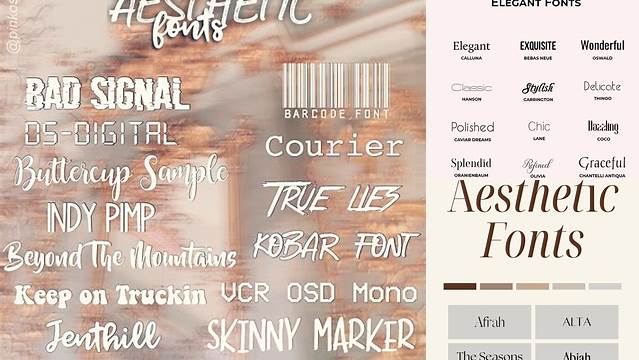
Best Aesthetic Fonts In Word: A Complete Guide
Hey guys! Ever wondered how to make your Word documents look absolutely stunning? It all starts with the right fonts! Choosing the best aesthetic fonts in Word can transform a plain document into a visually appealing masterpiece. Whether you're working on a resume, a presentation, or just a fun project, the perfect font can speak volumes. Let’s dive into the world of typography and explore some fantastic options that can elevate your work.
Why Font Choice Matters
Before we jump into the specifics, let's talk about why your font choice is so crucial. The aesthetic fonts in Word you select aren't just about looking pretty; they play a significant role in readability, conveying tone, and creating a professional or creative impression. Think about it – a formal report wouldn't look right in a whimsical, handwritten-style font, and a birthday invitation would feel out of place in a serious, traditional typeface. Selecting the appropriate font helps you communicate your message effectively and ensures your audience engages with your content.
Fonts have the power to evoke emotions and set the mood. A classic serif font like Times New Roman might give a sense of authority and tradition, while a sleek sans-serif font like Arial can project modernity and simplicity. Then there are the more decorative fonts, which can add personality and flair, but must be used judiciously to avoid overwhelming the reader. Understanding these nuances allows you to make informed decisions and choose fonts that align perfectly with your project's purpose and style. So, when you're pondering which aesthetic fonts in Word to use, remember that you're not just picking letters – you're crafting an experience.
Moreover, consider the context in which your document will be viewed. If it's primarily for on-screen reading, fonts optimized for digital displays, such as Segoe UI or Calibri, might be your best bet. These fonts are designed to be clear and legible even at smaller sizes, reducing eye strain and enhancing the viewing experience. On the other hand, if your document is intended for print, you might explore fonts with finer details and serifs, which often appear more elegant and readable on paper. Ultimately, the best aesthetic fonts in Word are those that not only look great but also serve their practical purpose, ensuring your message is conveyed clearly and beautifully. So, let's delve into some amazing options that can help you achieve just that!
Top Serif Fonts for a Classic Look
Serif fonts are characterized by the small lines or strokes (called serifs) at the ends of the letters. These fonts are often associated with tradition, authority, and readability, making them ideal choices for formal documents, reports, and printed materials. When you're aiming for a classic look, selecting the right serif font can make all the difference. Let’s explore some top contenders for aesthetic fonts in Word within the serif category.
Times New Roman: This is perhaps the most recognizable serif font, often used in academic writing and formal documents. While it might seem like a default choice, its familiarity and readability make it a solid option for projects requiring a professional touch. Times New Roman exudes a sense of reliability and clarity, ensuring your content is easily digestible and taken seriously. It’s a workhorse font, adaptable to various contexts while maintaining its dignified appearance. If you're drafting a formal letter, a research paper, or any document where credibility is paramount, Times New Roman is a dependable choice.
Garamond: Garamond is an elegant and refined serif font that adds a touch of sophistication to any document. Its classic letterforms and balanced proportions make it a pleasure to read, both on screen and in print. Garamond is perfect for projects that require a sense of timelessness and grace. Think of it as the font equivalent of a tailored suit – always stylish and appropriate. Whether you're designing a book, crafting a professional brochure, or simply aiming to elevate your everyday correspondence, Garamond brings an air of understated elegance that’s hard to beat. Its readability and aesthetic appeal make it one of the best aesthetic fonts in Word for those seeking a touch of class.
Georgia: Designed specifically for on-screen reading, Georgia is a highly legible serif font that retains its clarity even at small sizes. It’s an excellent choice for websites, articles, and digital documents where readability is key. Georgia’s sturdy letterforms and generous spacing make it easy on the eyes, preventing reader fatigue and ensuring your message is effectively conveyed. If you're creating content that will primarily be viewed on screens, such as blog posts, online reports, or e-books, Georgia is a font that combines practicality with a pleasant aesthetic. It’s a testament to how thoughtful design can enhance both the visual appeal and the functional aspects of typography, making it a top pick among aesthetic fonts in Word.
These serif fonts offer a range of styles, from the straightforward practicality of Times New Roman to the refined elegance of Garamond and the digital-friendly clarity of Georgia. Each has its unique charm and application, making them essential tools in your typographic arsenal. Choosing the right serif font can significantly enhance the professional and aesthetic appeal of your Word documents, ensuring your message is delivered with both clarity and style.
Sleek Sans-Serif Fonts for a Modern Feel
Sans-serif fonts, characterized by the absence of serifs (those little strokes at the ends of letters), offer a clean, contemporary aesthetic. They are often associated with modernity, simplicity, and clarity, making them popular choices for websites, presentations, and documents that aim for a minimalist look. If you’re looking to give your work a sleek, up-to-date feel, exploring sans-serif fonts is the way to go. Let's take a look at some of the best aesthetic fonts in Word within this category.
Remember, the goal is to choose fonts that not only look beautiful but also enhance your message. Consider the context, audience, and purpose of your document when making your selection. Pair fonts thoughtfully, create visual hierarchy, and limit your choices to maintain a professional and cohesive look. With the right fonts, you can elevate your writing, captivate your readers, and make a lasting impression. So, go ahead and experiment, have fun, and discover the power of typography in your Word documents! Guys, you've got this!